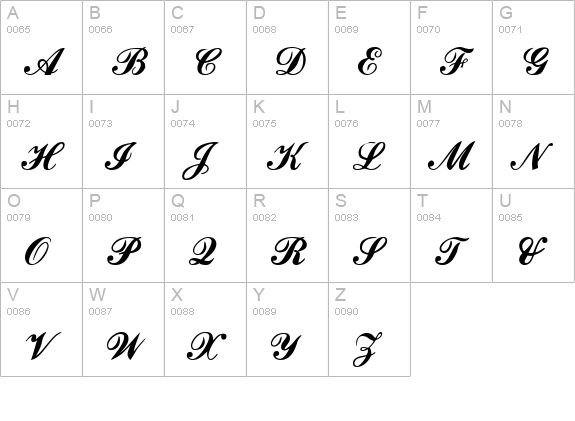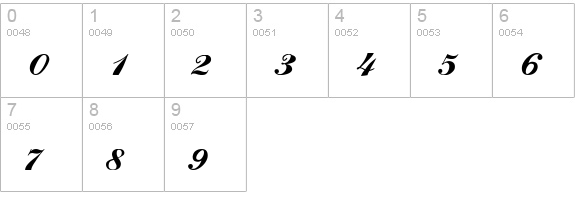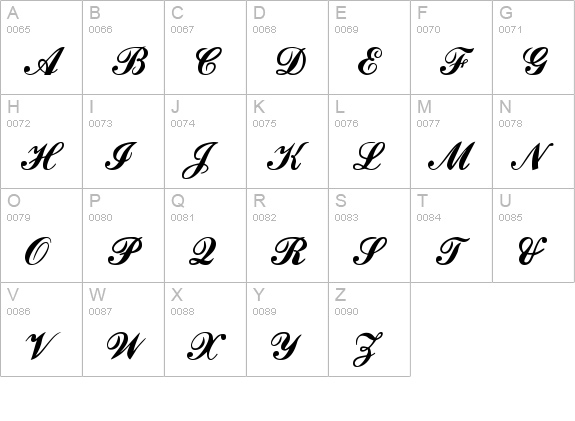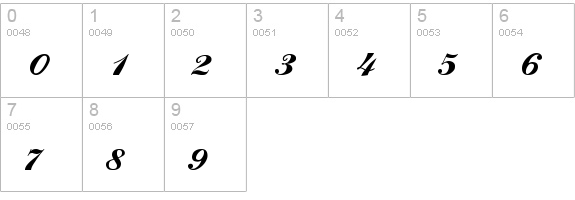
Ford script Font Details
Ford script font is a beautiful and elegant typeface that exudes sophistication and style. With its graceful curves and flowing lines, this font is perfect for adding a touch of class to any design project. Whether you're creating wedding invitations, branding materials, or just want to add a touch of elegance to your personal projects, Ford script font is sure to impress. The best part? Ford script font is completely free to download at FontsMarket.com. That's right, you can add this stunning font to your collection without spending a dime. So why wait? Download Ford script font today and elevate your designs with its timeless beauty and charm.